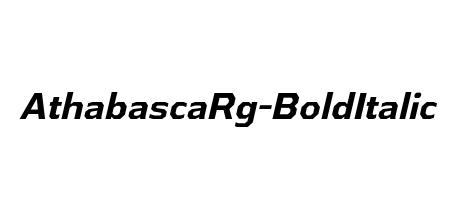
AthabascaRg-BoldItalic
By Raymond Larabie
AthabascaRg-BoldItalic: A font that whispers adventure. Its bold, italicized strokes evoke a sense of urgency and intrigue, like a secret message scrawled across a parchment map. Its slightly condensed form feels swift and confident, perfect for titles demanding attention and a touch of daring.